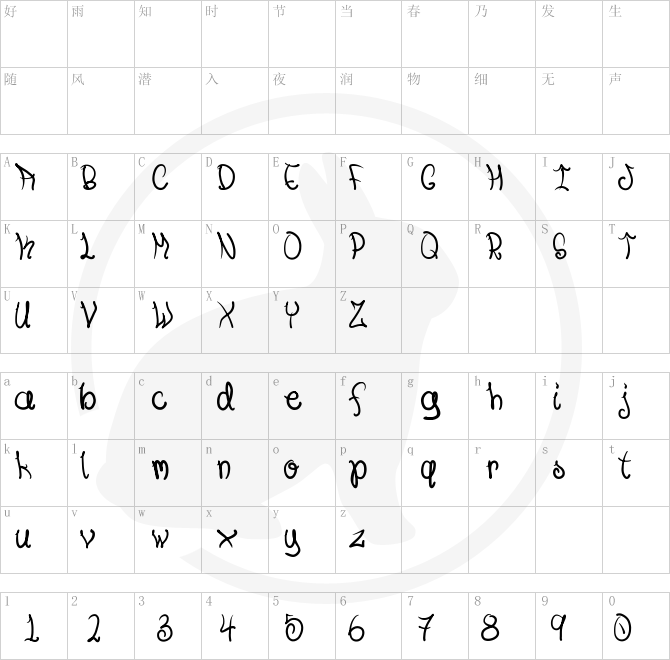
- Font Name:NADC- You Know it
NADC-You-Know-It.ttf is a very beautiful artistic font, NADC-You-Know-It.ttf is widely used in the design and printing of various books and pictures,NADC-You-Know-It.ttf has a strong visual impact,NADC-You-Know-It.ttf is a commonly used font in newspapers, magazines and books, and is used in posters, e-commerce Poster design, store design, logo design, font design and other fields.NADC-You-Know-It.